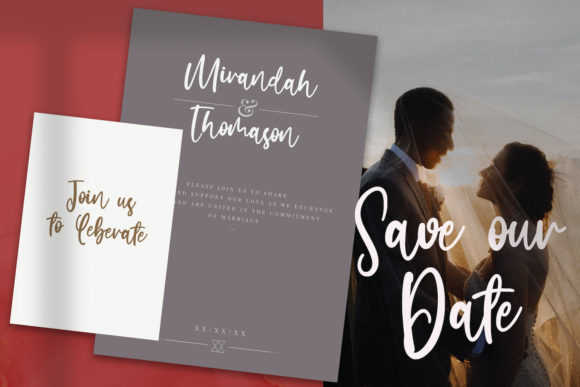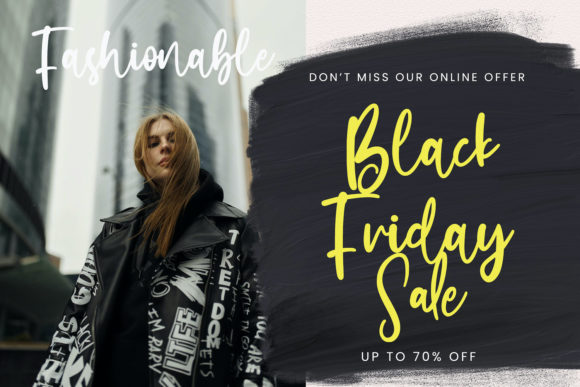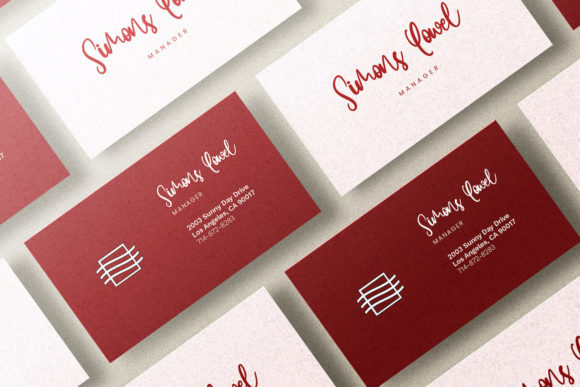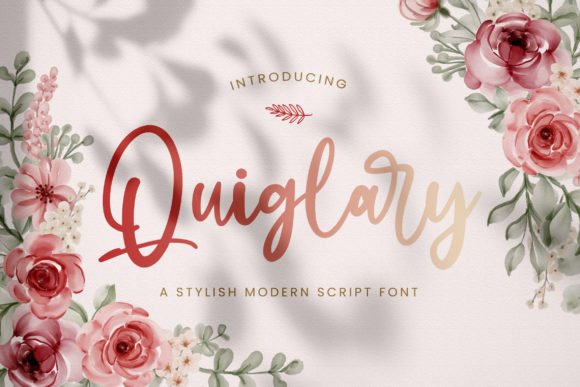
Introduction to Quiglary Font
Quiglary is a relaxed, stylish and cursive script font.
It will add a luxury spark to any design project that you wish to create Fall in love with its incredibly versatile style and use it to create spectacular designs.
Key Features of Quiglary Font